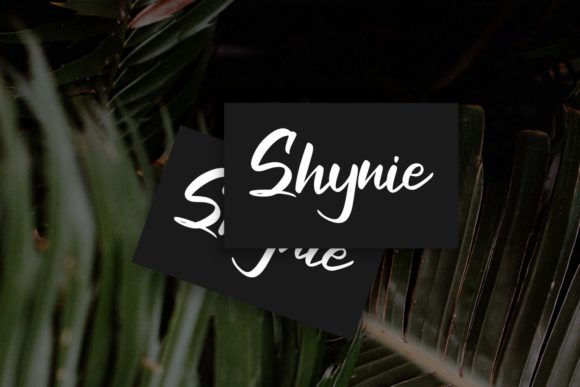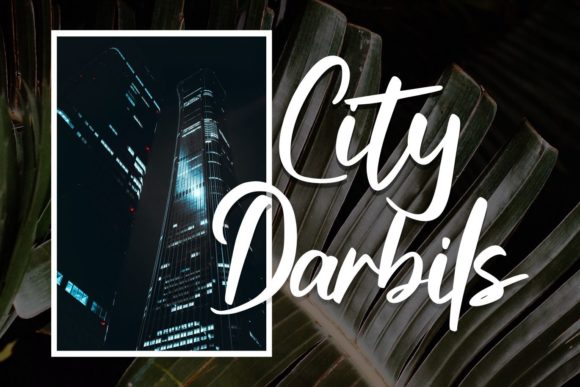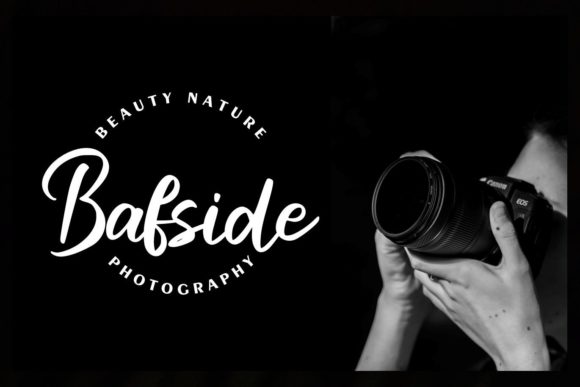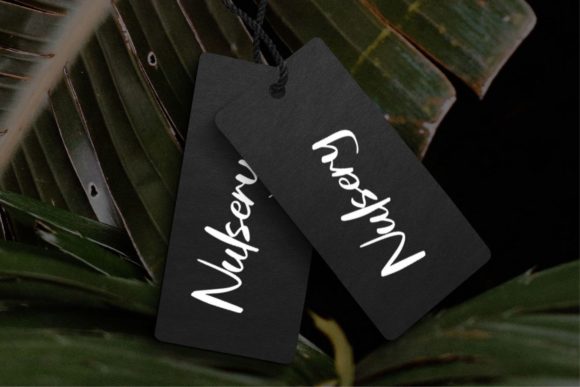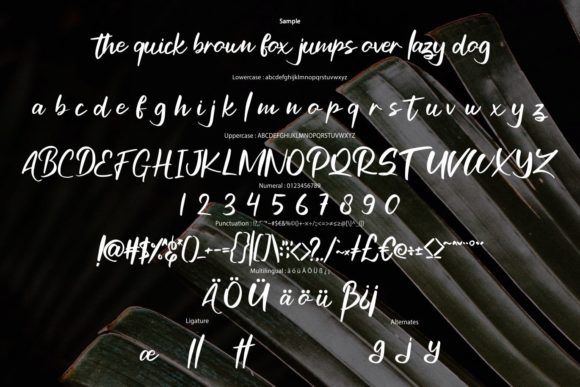
Introducing Haditen Script Font: Elevate Your Designs with Confidence and Style
In the world of typography, a font can make or break a design. For designers and crafters looking for a stylish and versatile script font, Haditen Script is an exceptional choice. This chic, trendy script font emanates confidence and adaptability, making it the perfect match for a wide range of projects. With its stylish alternates and ligatures, Haditen Script Font is sure to elevate your designs and leave a lasting impression.
What Makes Haditen Script Font Stand Out?
Haditen Script Font boasts a unique and modern design that sets it apart from other script fonts. Its flowing lines and curves create a sense of movement and fluidity, making it perfect for designs that require a touch of elegance and sophistication. The font’s confident and versatile nature makes it suitable for various applications, from branding and advertising to packaging and digital media.
Key Features of Haditen Script Font
• Stylish Alternates: Haditen Script Font features a range of stylish alternates that allow you to add a personal touch to your designs. With multiple options to choose from, you can experiment with different styles and find the perfect fit for your project.
• Ligatures: The font also includes ligatures, which enable you to create beautiful connections between letters. This feature adds a touch of sophistication and elegance to your designs, making them more visually appealing.
• Versatility: Haditen Script Font is designed to be versatile, making it suitable for a wide range of projects. Whether you’re working on a logo, brochure, or social media graphics, this font is sure to deliver.
Why Choose Haditen Script Font?
With so many script fonts available, why choose Haditen Script Font? Here are a few compelling reasons:
• Unique Design: Haditen Script Font boasts a unique and modern design that will set your designs apart from the rest.
• High-Quality: Haditen Script Font is a high-quality font that is designed to deliver exceptional results in both print and digital formats.
How to Use Haditen Script Font in Your Designs
Using Haditen Script Font in your designs is easy. Here are a few tips to get you started:
• Pair it with a Sans-Serif Font: Pair Haditen Script Font with a sans-serif font to create a striking contrast and add visual interest to your designs.
• Experiment with Alternates: Don’t be afraid to experiment with the font’s stylish alternates to find the perfect fit for your project.
• Use it for Headings: Haditen Script Font is perfect for headings and titles. Use it to add a touch of elegance and sophistication to your designs.
Haditen Script Font is a stylish and versatile script font that is perfect for designers and crafters looking to elevate their designs. With its unique design, stylish alternates, and ligatures, this font is sure to deliver exceptional results. Whether you’re working on a branding project, packaging design, or digital media, Haditen Script Font is an excellent choice. So why wait? Try Haditen Script Font today and take your designs to the next level!